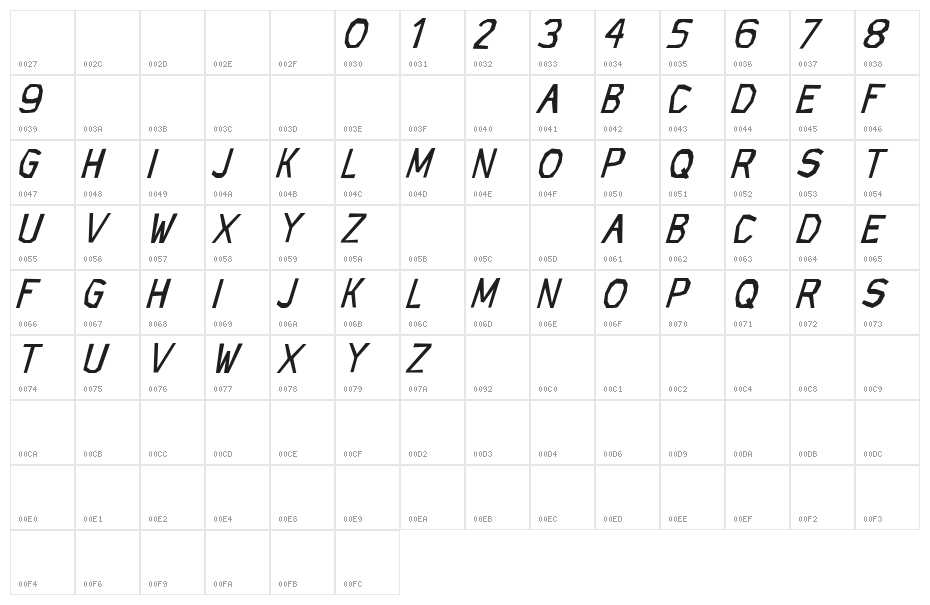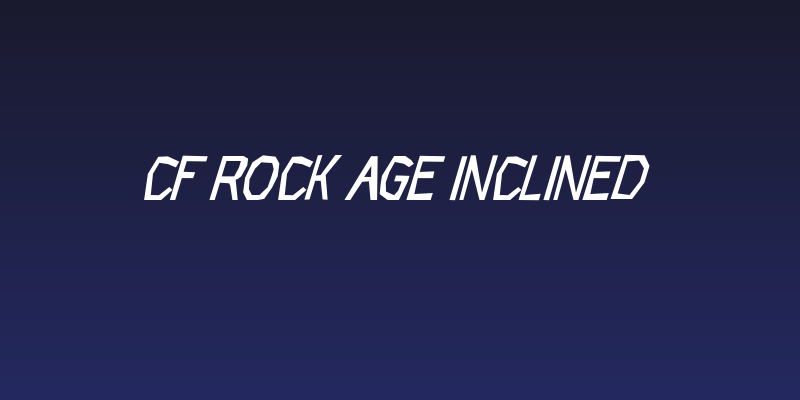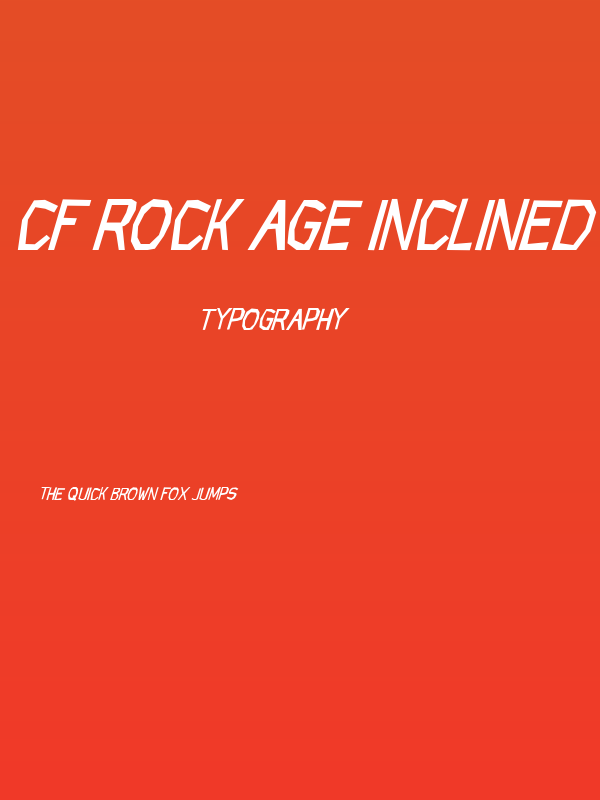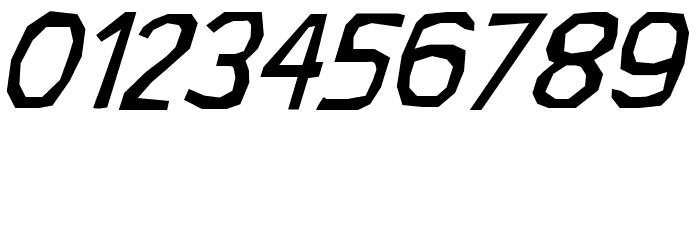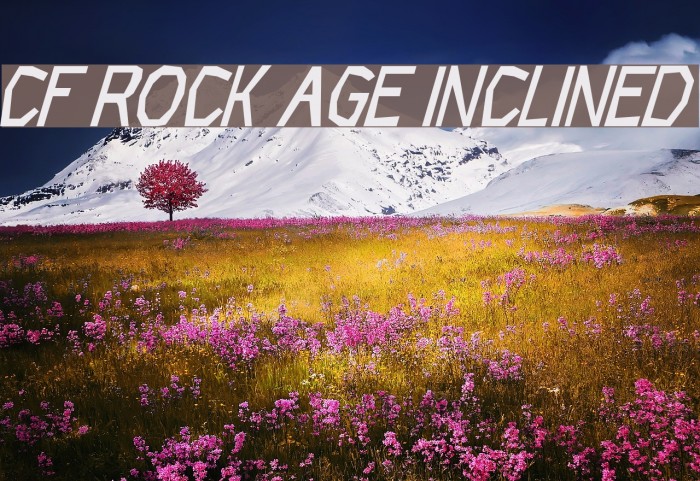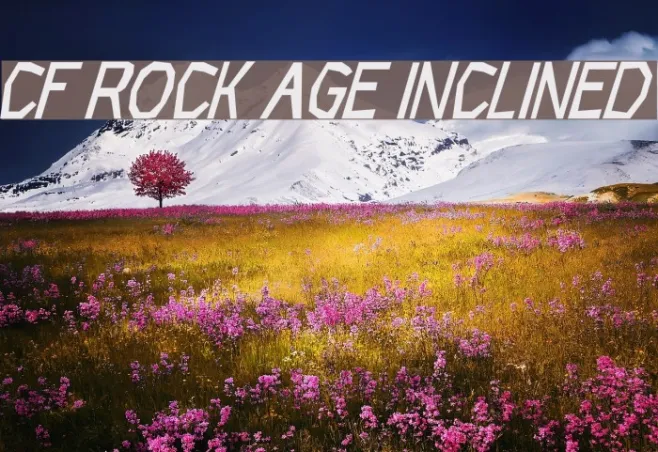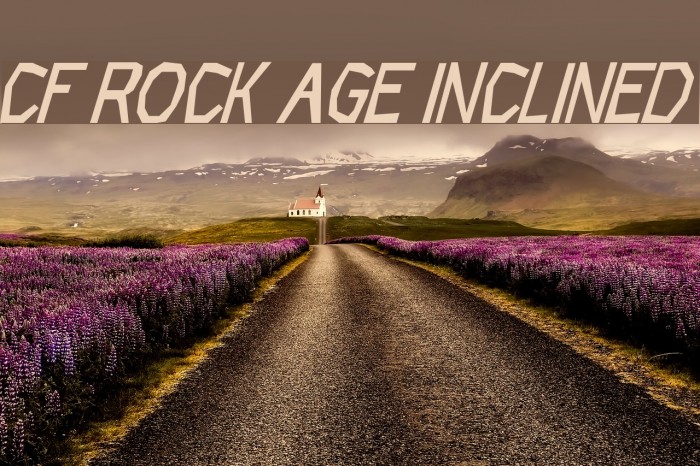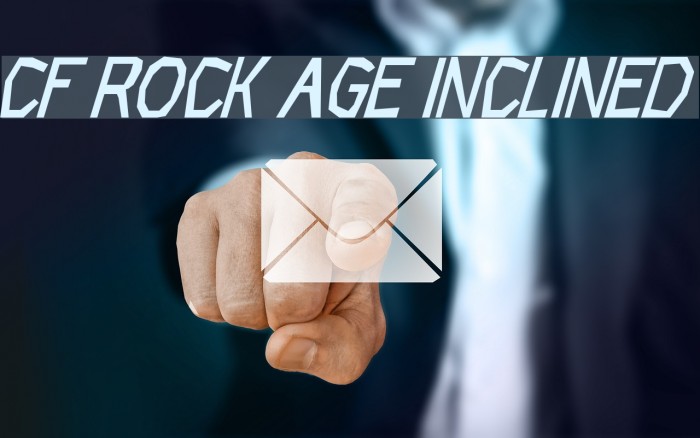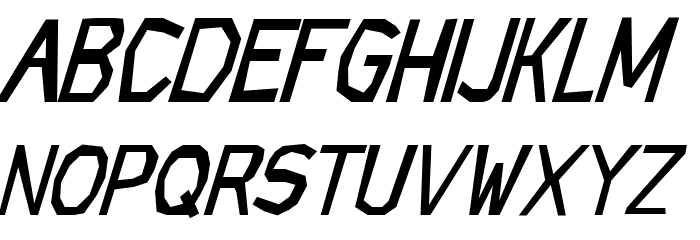
CF Rock Age Inclined Font
CF Rock Age Inclined Description
This font features a bold and angular design, characterized by its sharp, geometric edges and a distinct slant that gives it a dynamic, forward-moving appearance. The uppercase letters are robust and commanding, with a consistent thickness that conveys strength and stability. The numbers follow the same angular style, ensuring uniformity across all characters. This font's unique style is reminiscent of rock carvings or chiseled stone, making it ideal for projects that require a rugged, impactful look. Its boldness and inclination suggest movement and energy, suitable for attention-grabbing headlines or logos.
| Proposed Projects | Ideal for use in logos, headlines, posters, and branding materials that require a strong, impactful presence. |